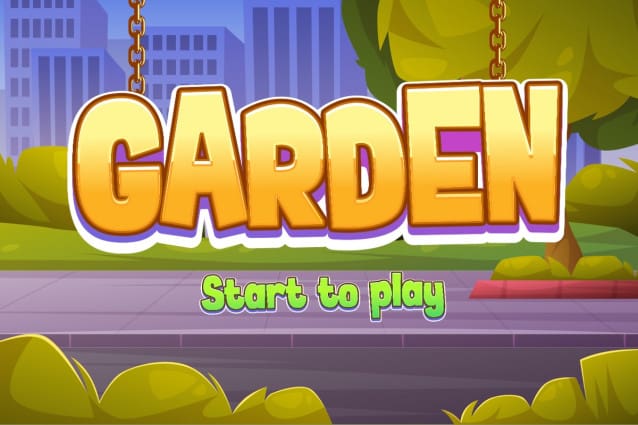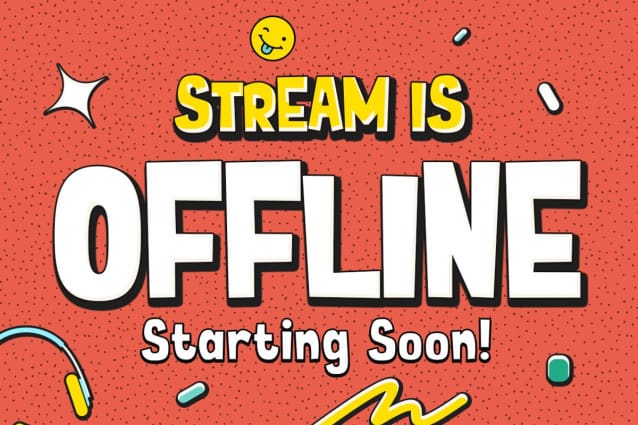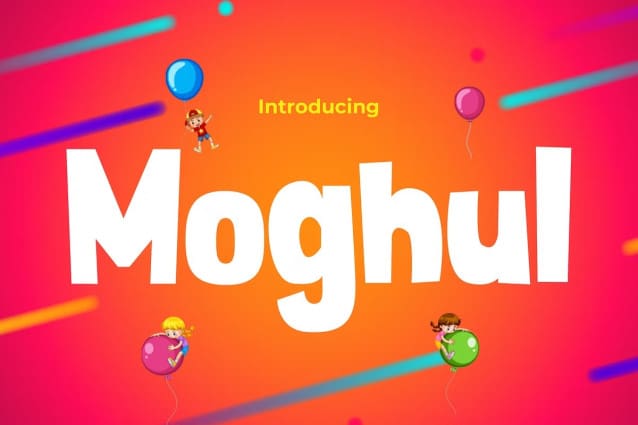
Moghul Playful Font
Moghul Playful Font presents a delightful fusion of whimsy and imagination, tailor-made to enrich designs aimed at children, games, and cartoons. With charming characters and vibrant colors, each letter exudes joy and tenderness, perfectly suited for projects catering to a younger audience. Every stroke of this font radiates life and creativity, bringing forth an atmosphere of fun and invitation to any design involving the world of children, games, and cartoons.
Beyond its unique design, Moghul Playful offers consistency and ease of use, making it ideal for various creative purposes. Whether you’re creating educational materials, game applications, or products related to the children’s world, this font will provide a visually captivating touch. With Moghul, you not only get a visually stunning font but also a powerful tool to communicate messages with the cheerfulness and tranquility needed in environments focused on children, games, and cartoons.